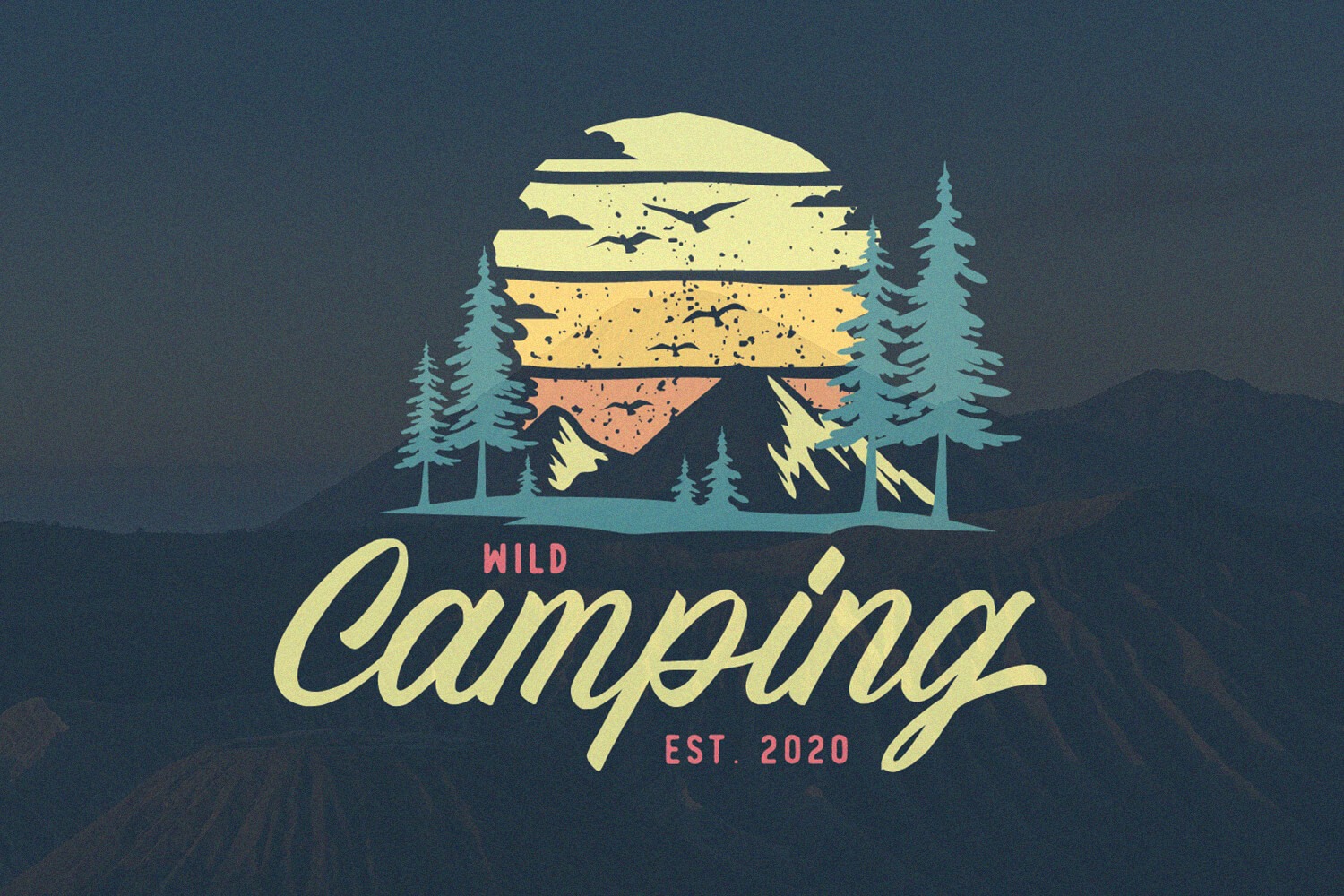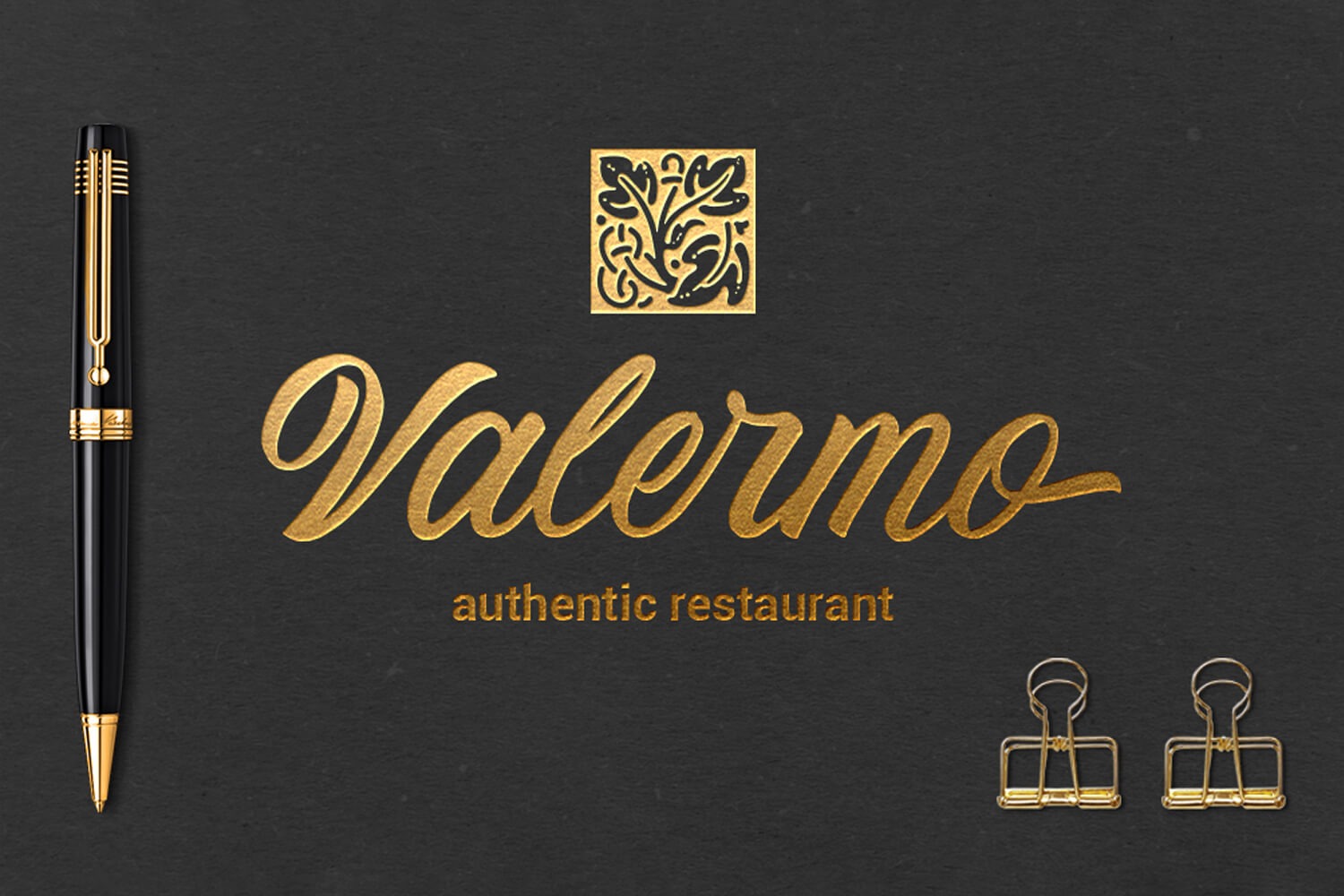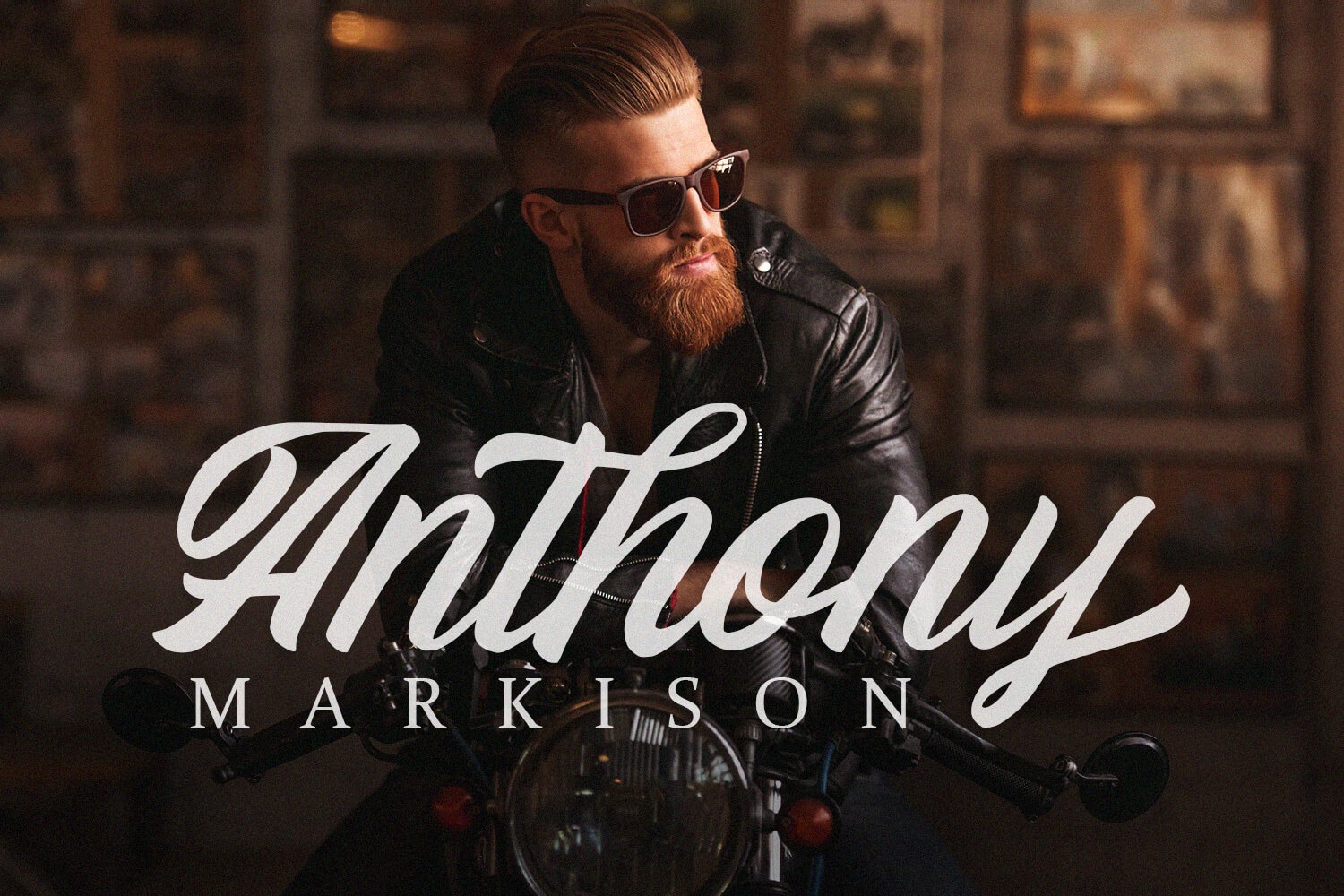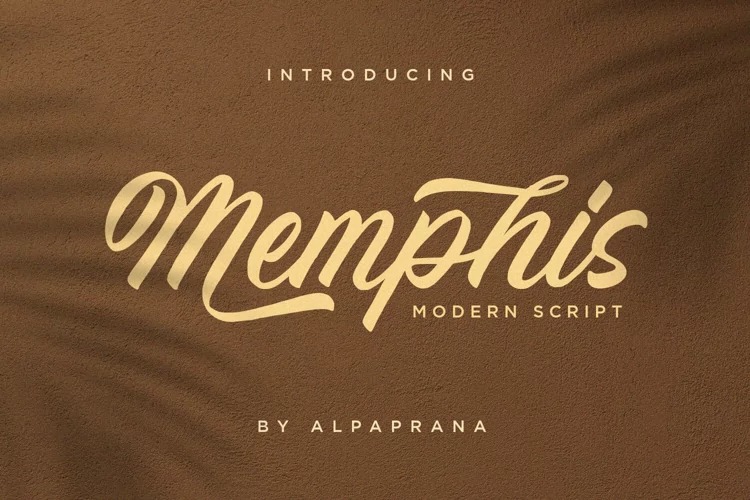
Memphis Script Font
It’s a popular and professional script font from designer Alpaprana Studio. Modern and elegant, this typeface is made of beautiful creative strokes. It will be perfectly used for Branding, Logo Design, Lettering, Logotype, Clothing, Poster, magazine, packaging, posters, shopping bags, t-shirts, book covers, photography, special events and other design project.